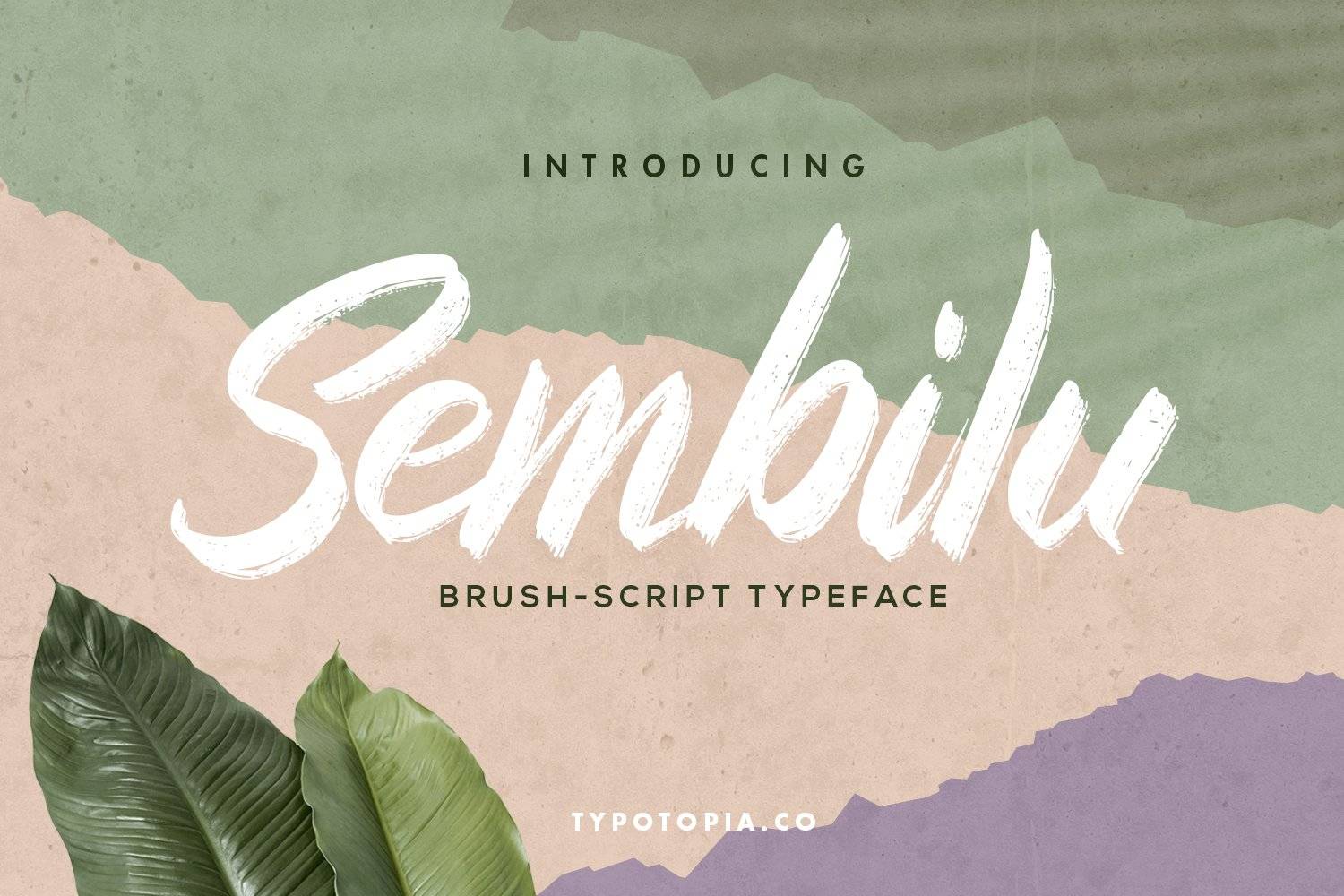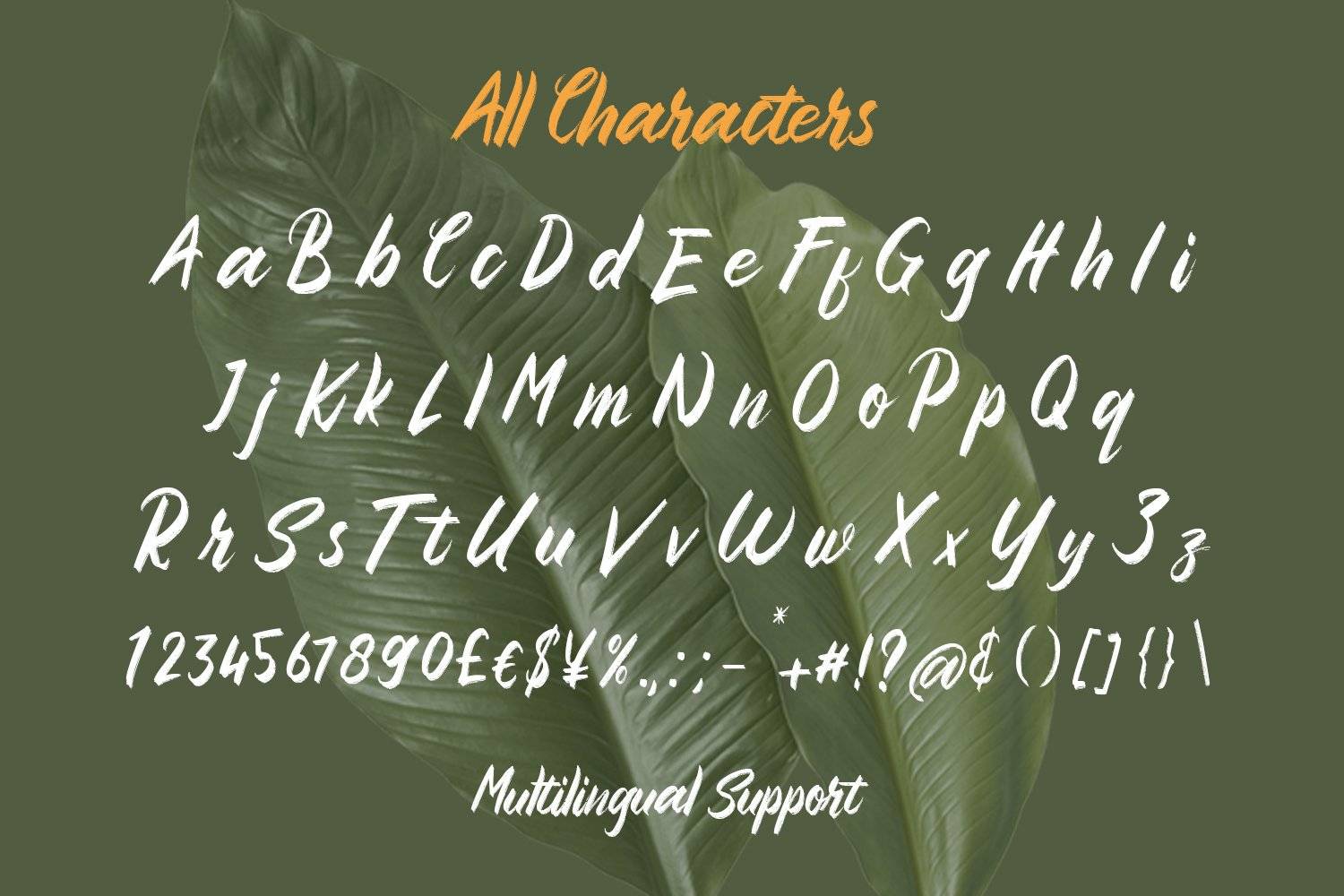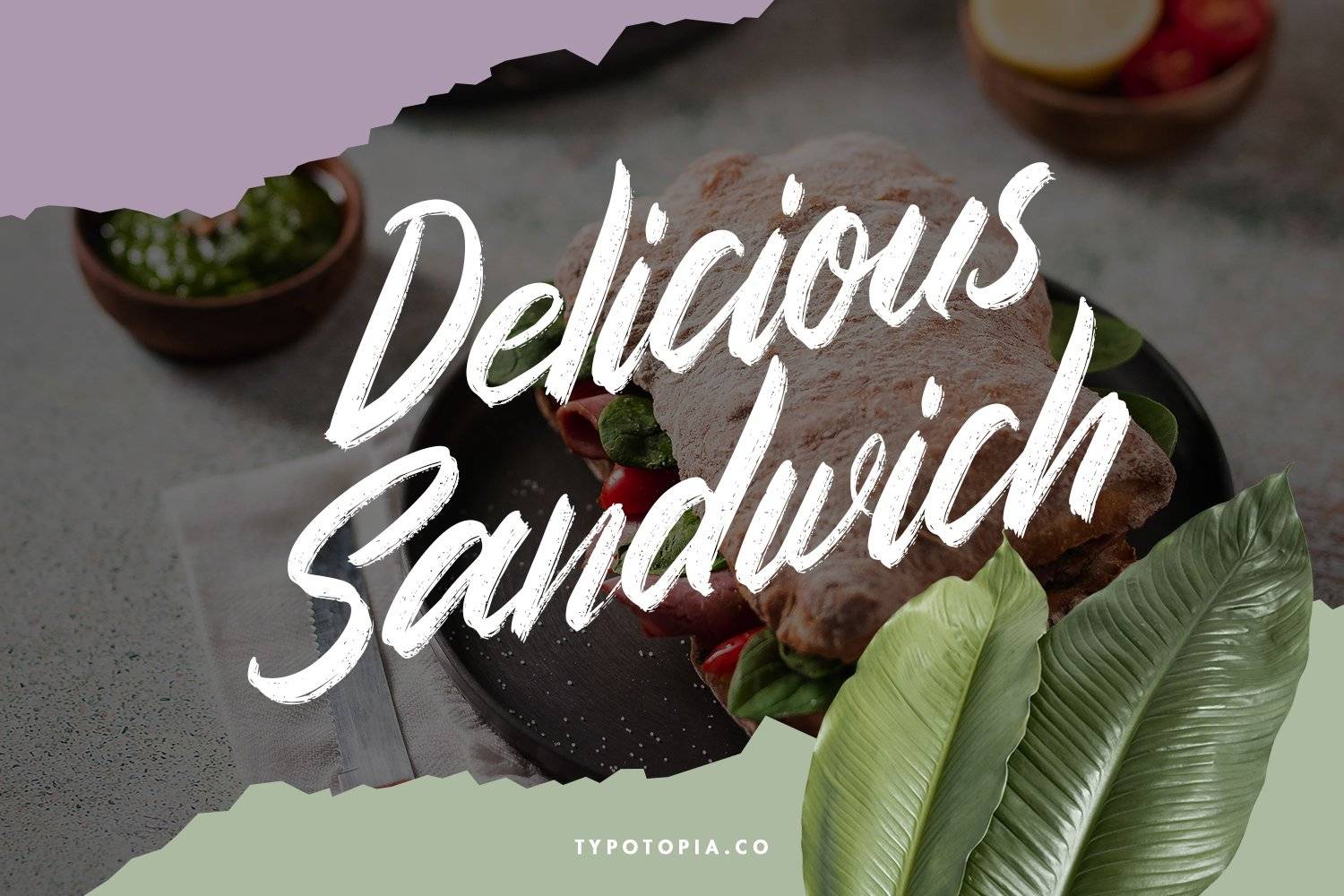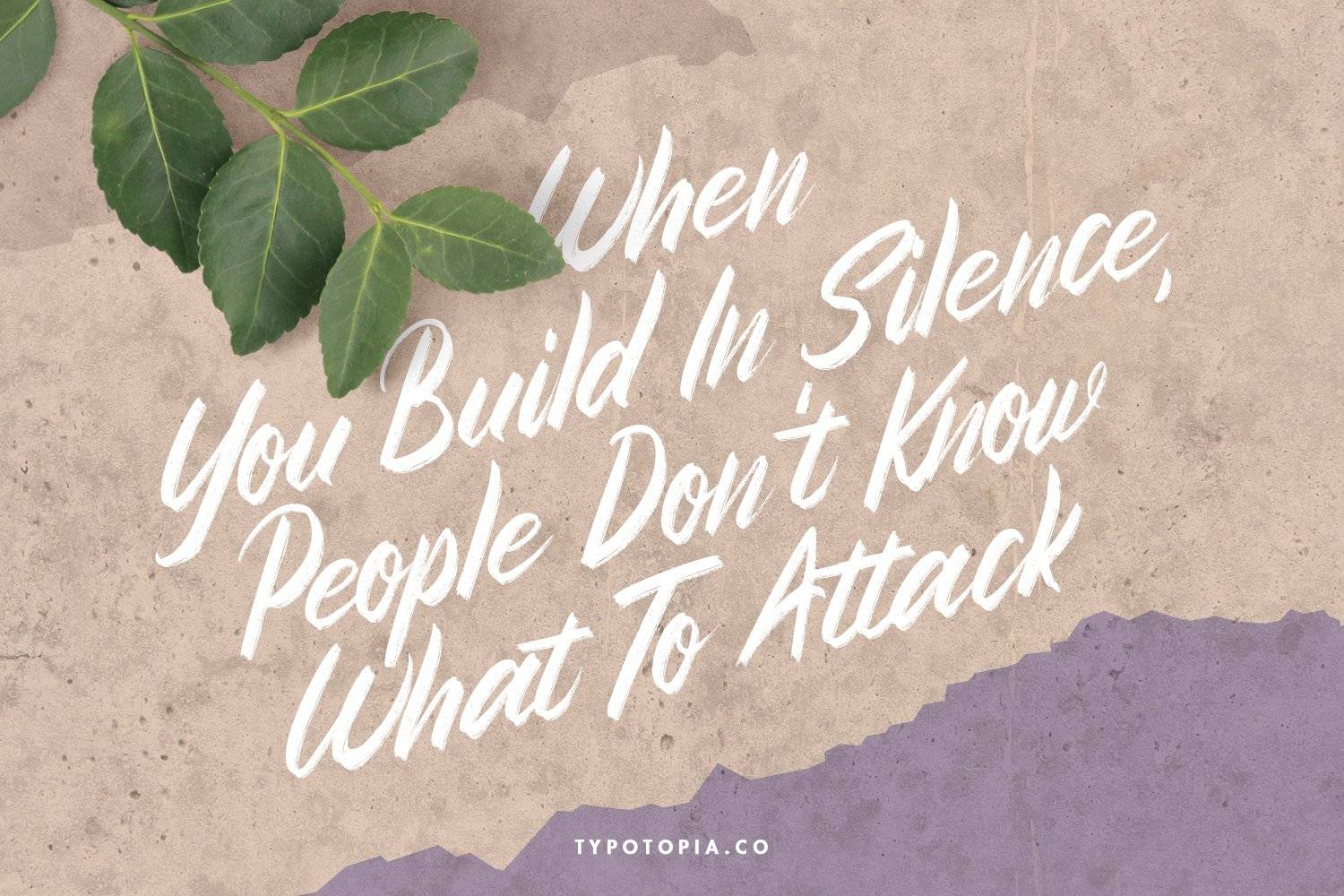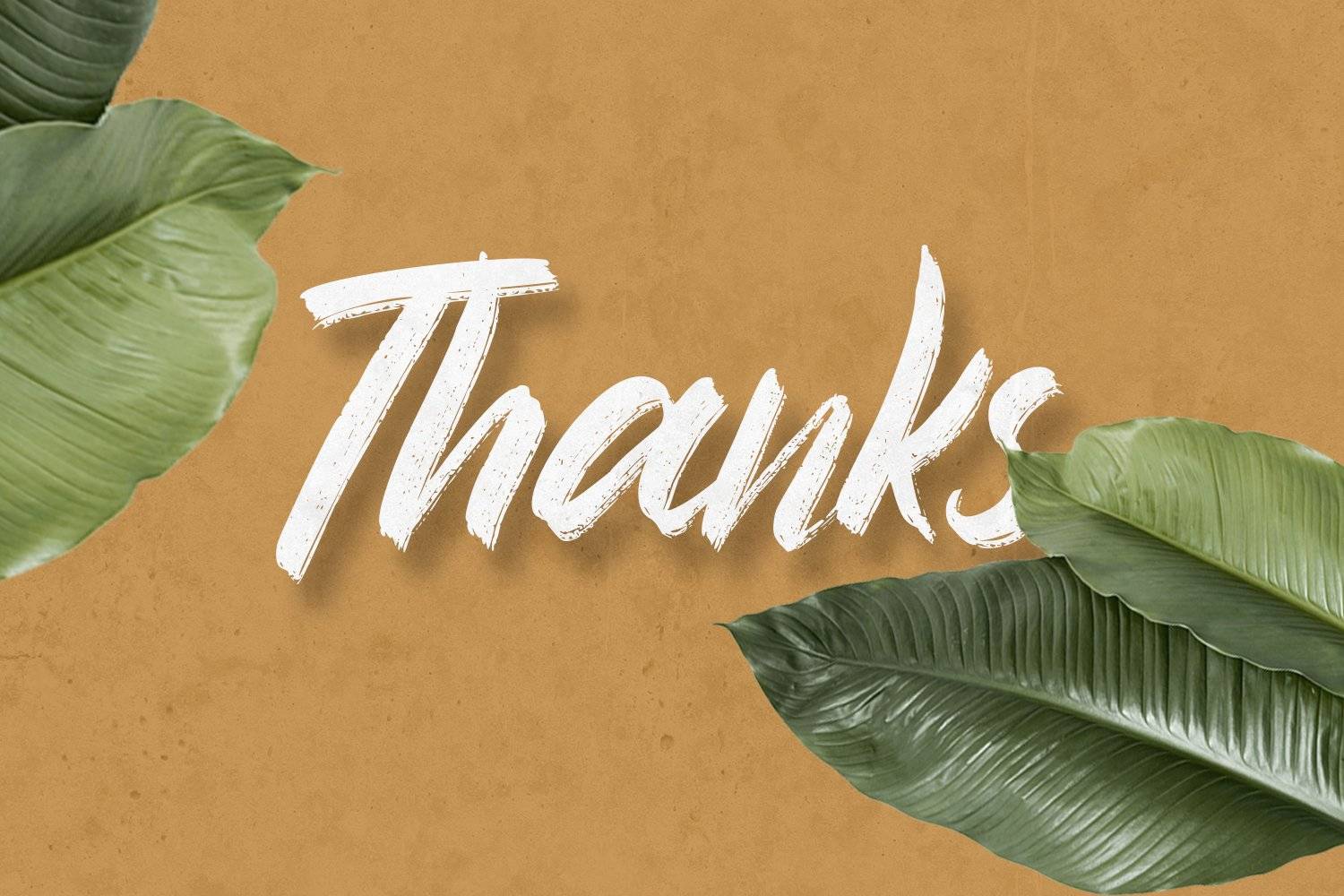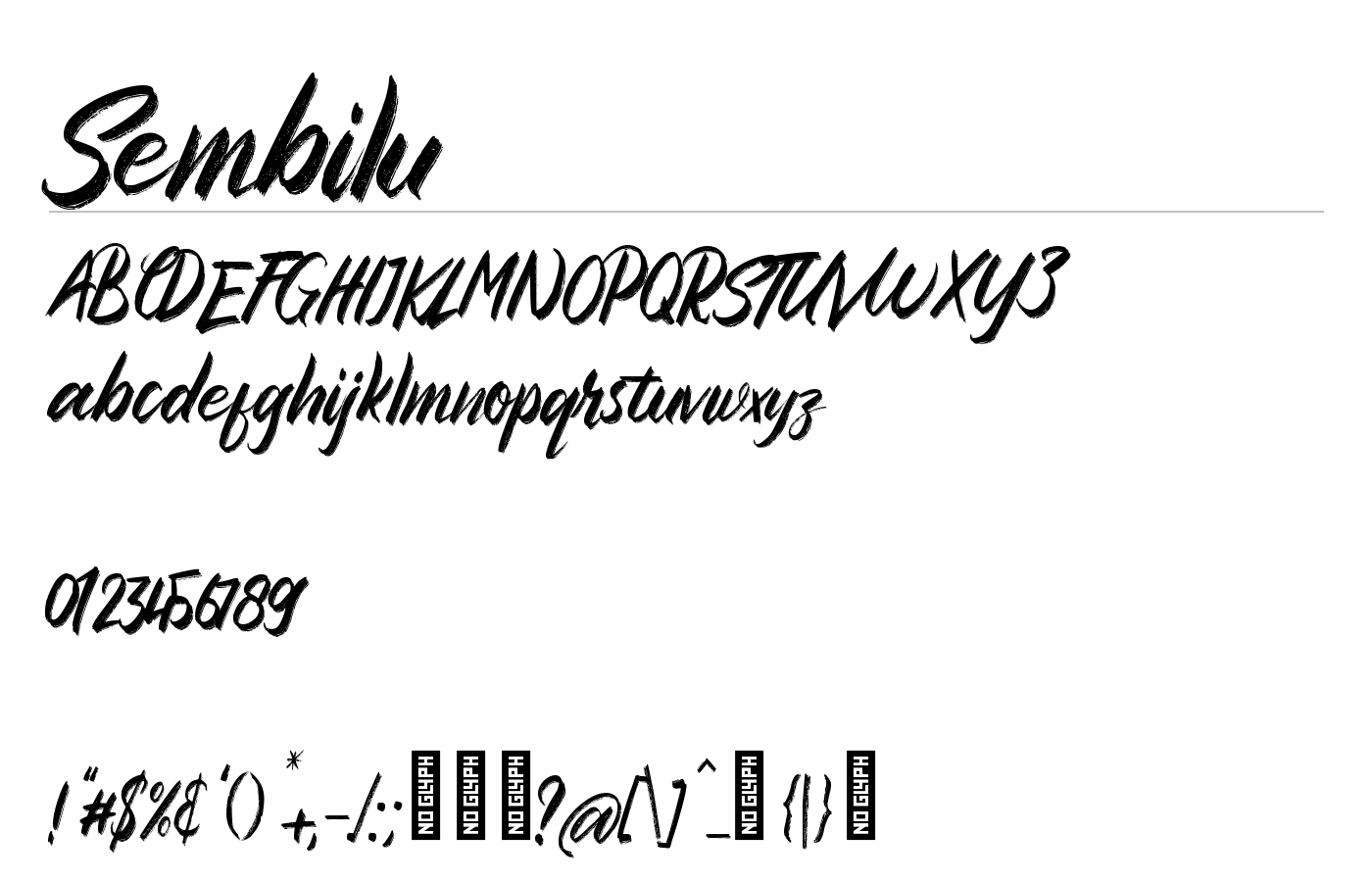
Sembilu is a bold, brush-script font with a dynamic, hand-painted feel, featuring fluid, slightly irregular strokes that give it an energetic and artistic personality. Its casual style makes it ideal for creative projects, branding, posters, and headlines where a lively, expressive touch is needed. This font works well to communicate individuality and creativity, adding a spontaneous and vibrant vibe to any design.
Sembilu Font
About Sembilu Font